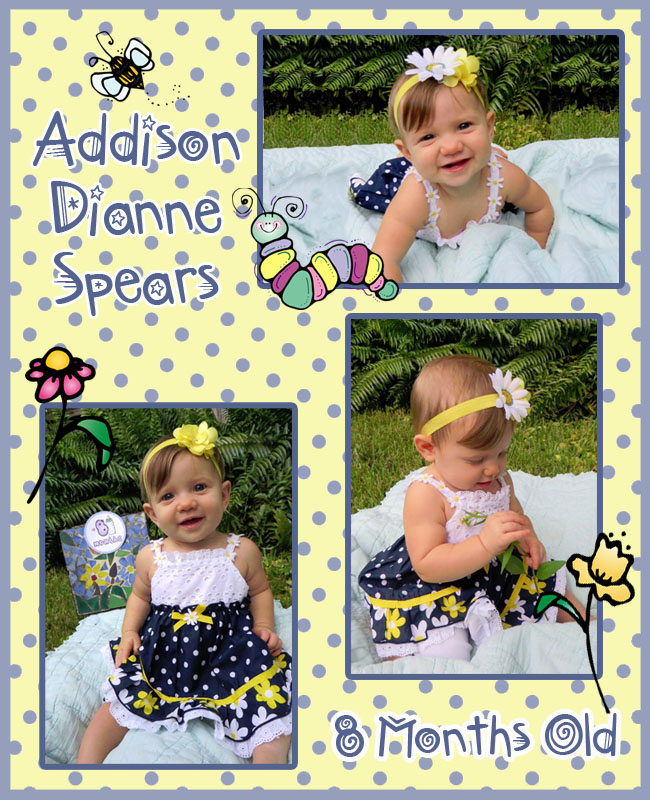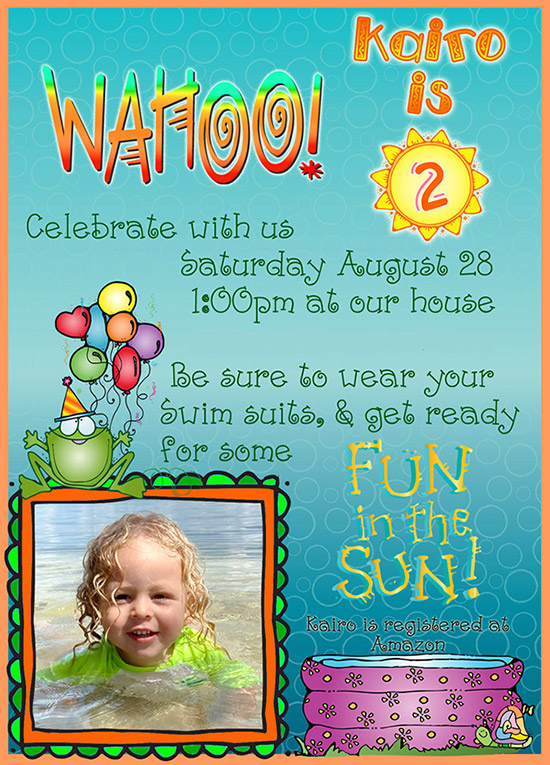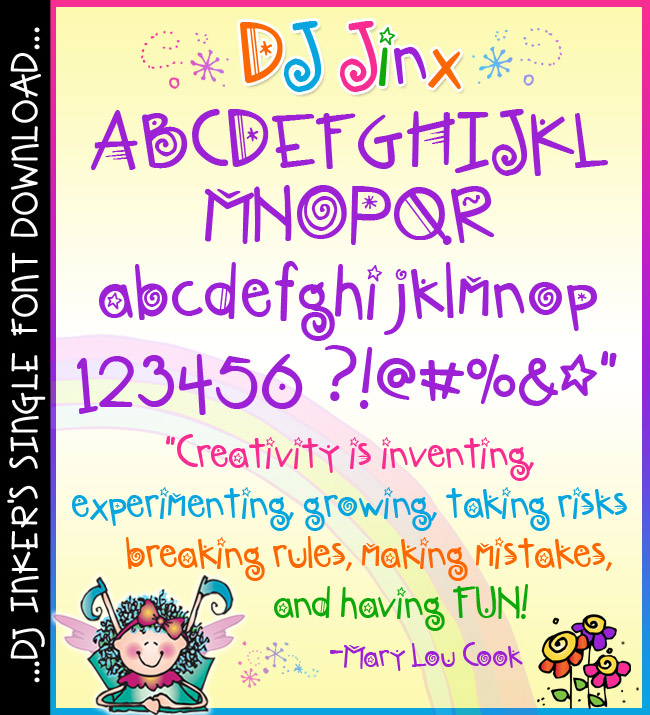
DJ Jinx Font Download
DJ Jinx is a sassy little font, packed with personality &
fun for any occasion. Use it for party invitations, headlines, toppers,
birthdays, greeting cards & more! Looks best in larger sizes and bold,
crazy colors.